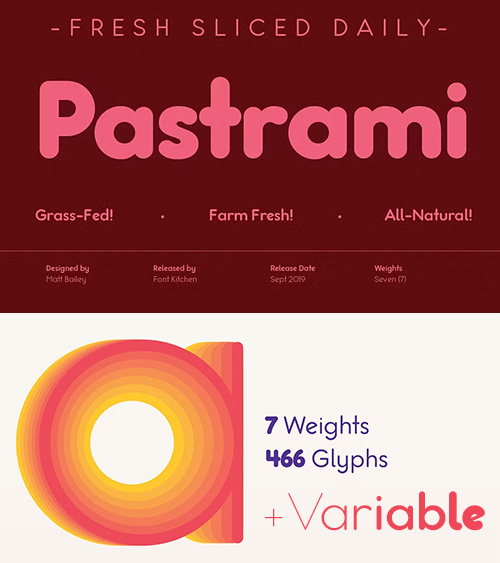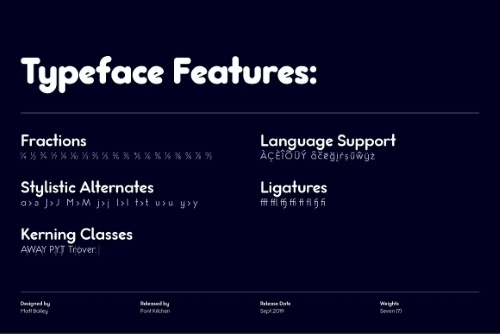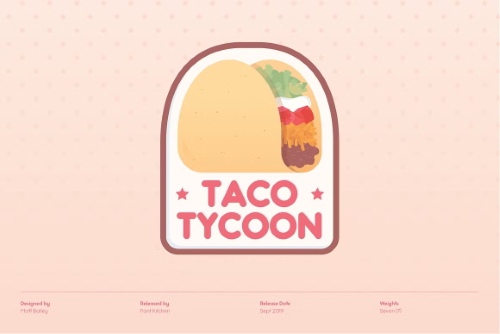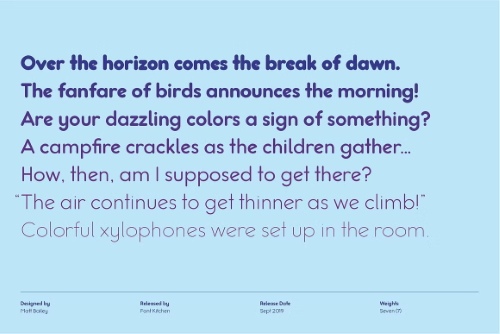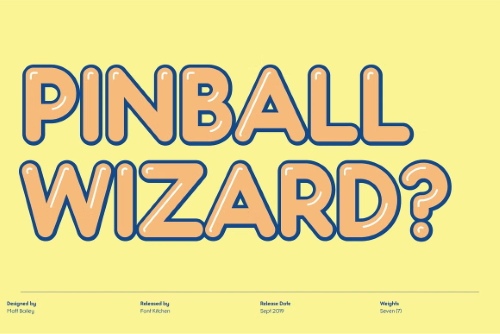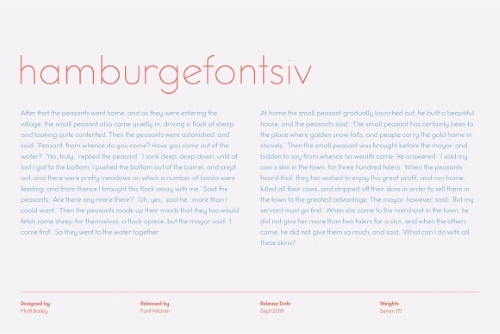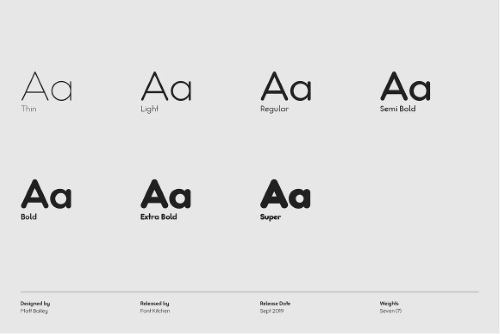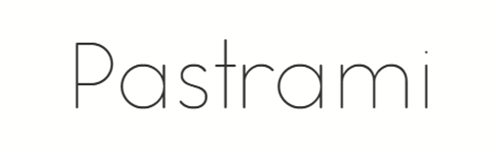
- Enjoy Font Kitchen’s all-natural Pastrami! This rounded geometric sans is served with a tall glass of ligatures, a heaping portion of all kinds of fractions, and your choice of stylistic alternates. Inspired by warm, whimsical typefaces of 70s American diners, Pastrami is perfect for adding a stylized charm to your next piece. Available in seven weights, Pastrami is sure to add a dash of flavor to your next project.